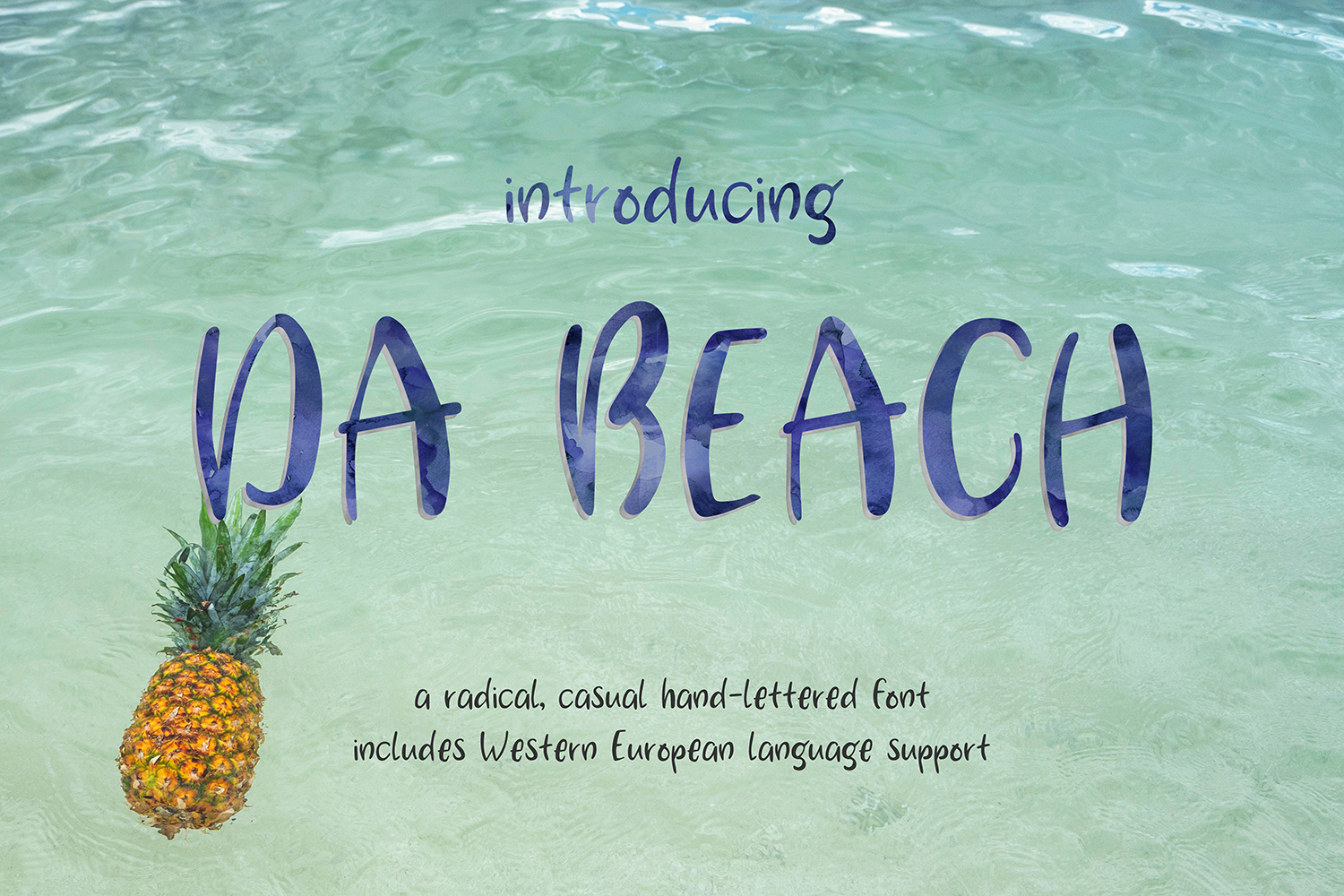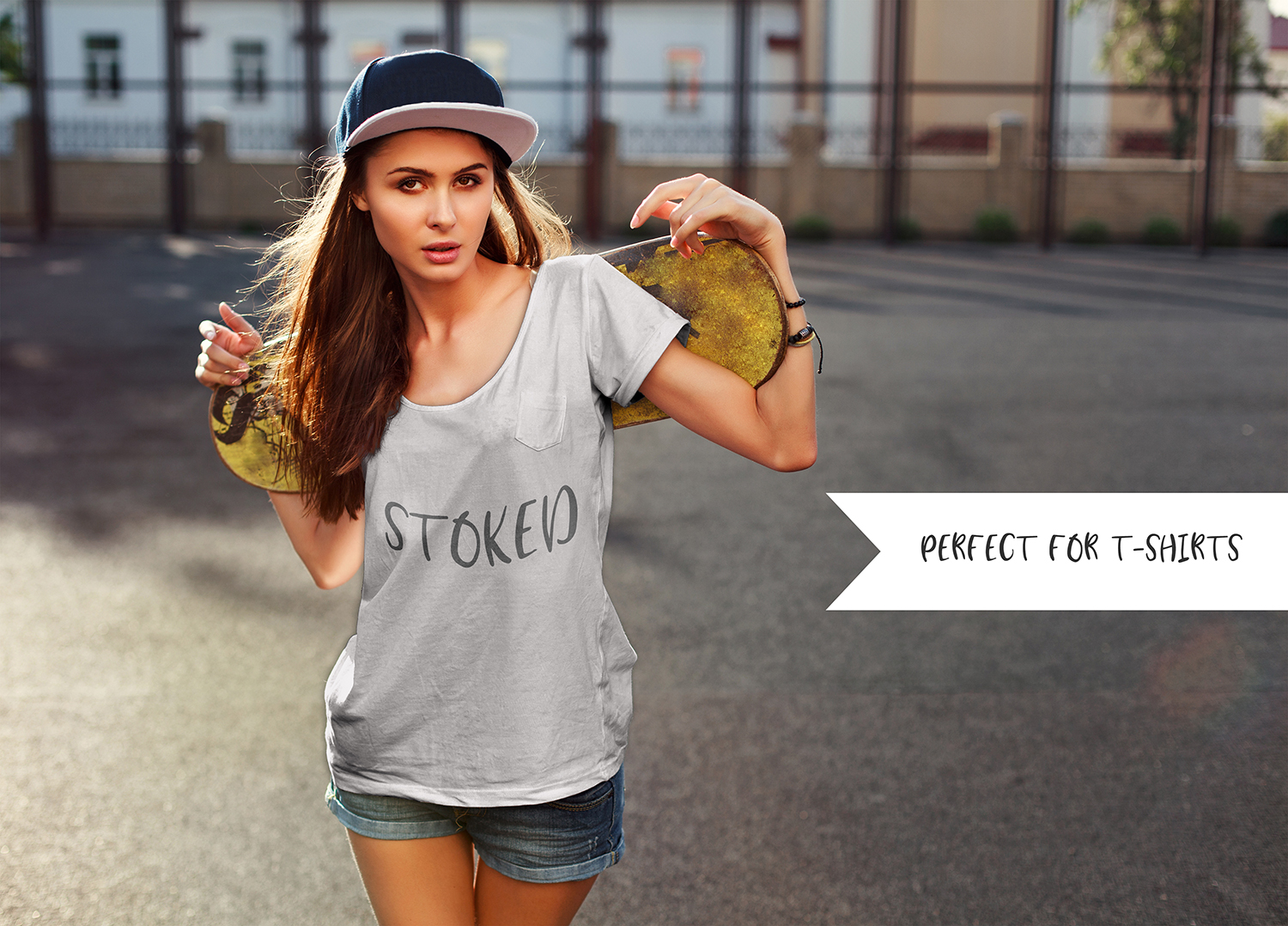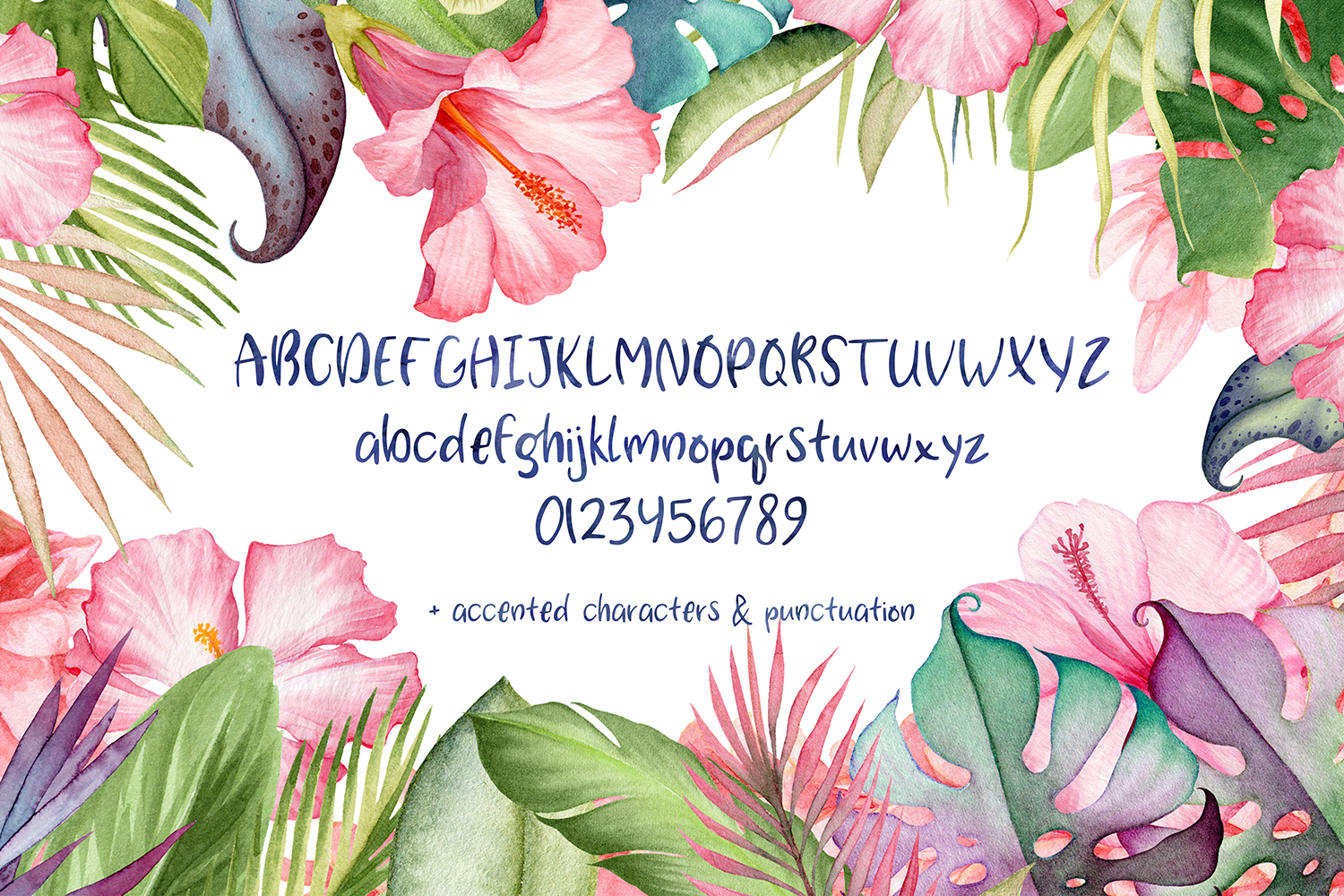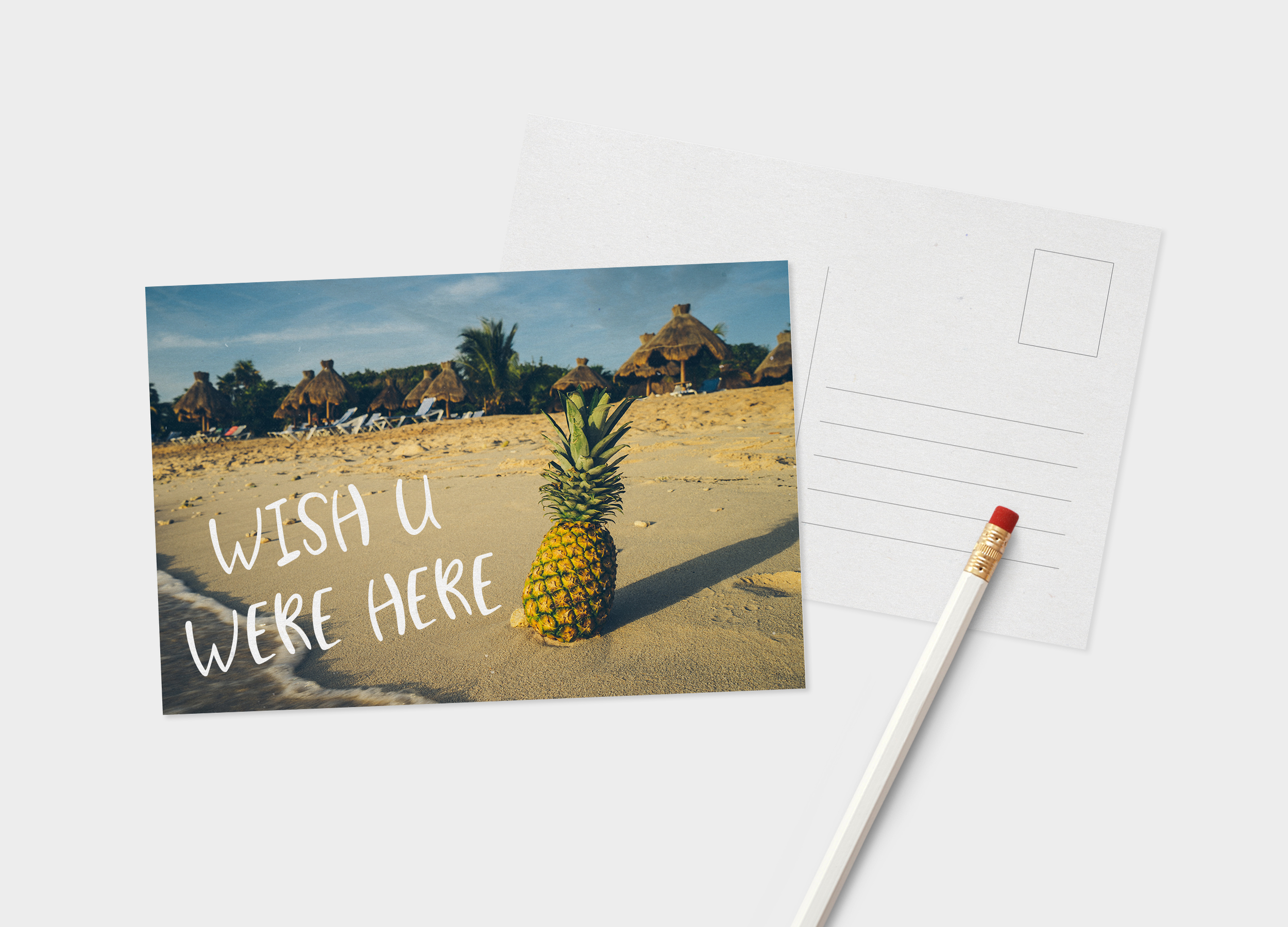
Da Beach Hand Font
About Da Beach Hand Font
Growing up on the beach back east, and moving to the beach on the west coast, one thing has never changed. That beachy vibe. Inspired by the casual, easy-going nature of life on the beach, Da Beach is a fun sans font hand-lettered on an iPad. Includes Western European language support.